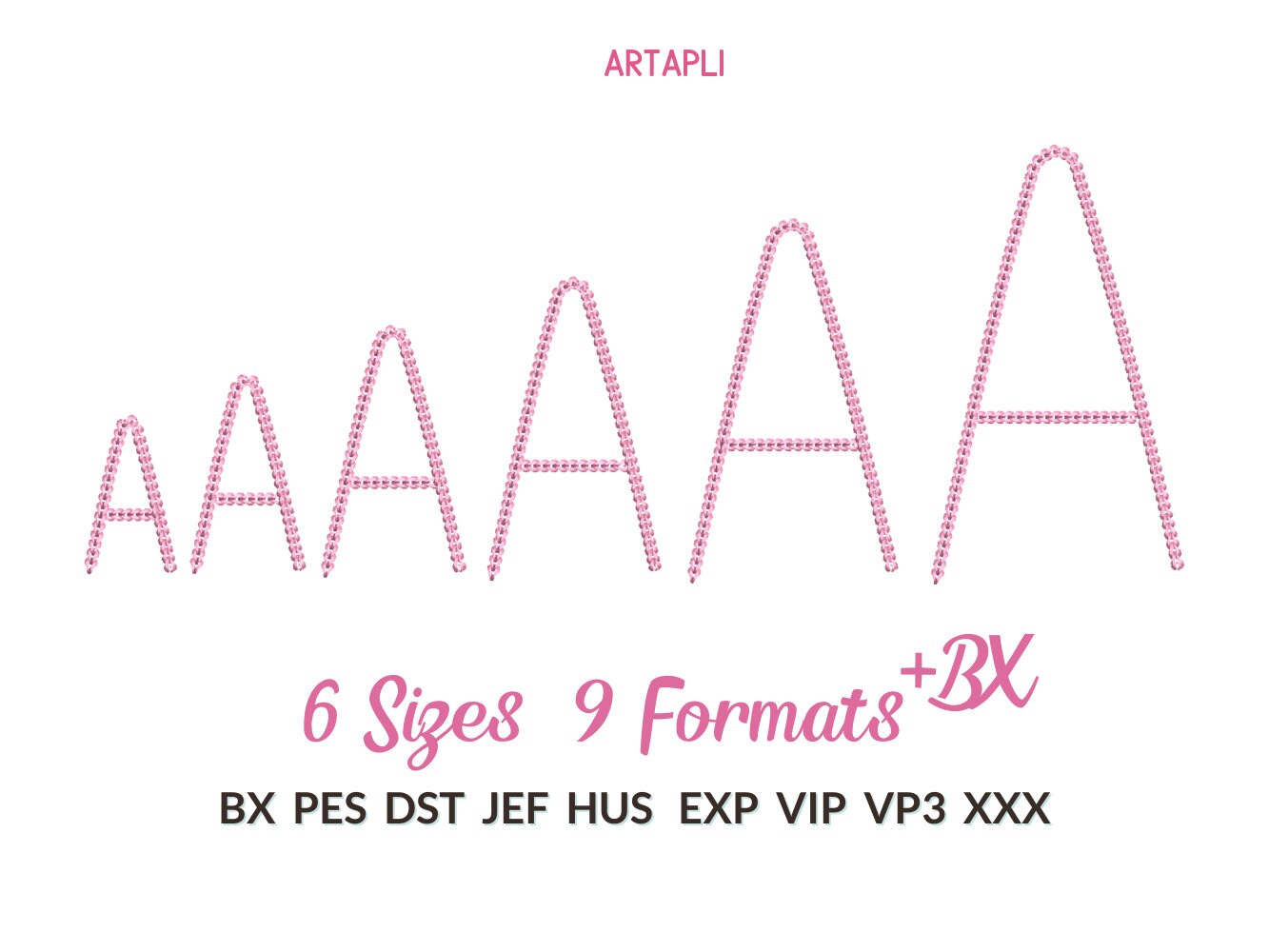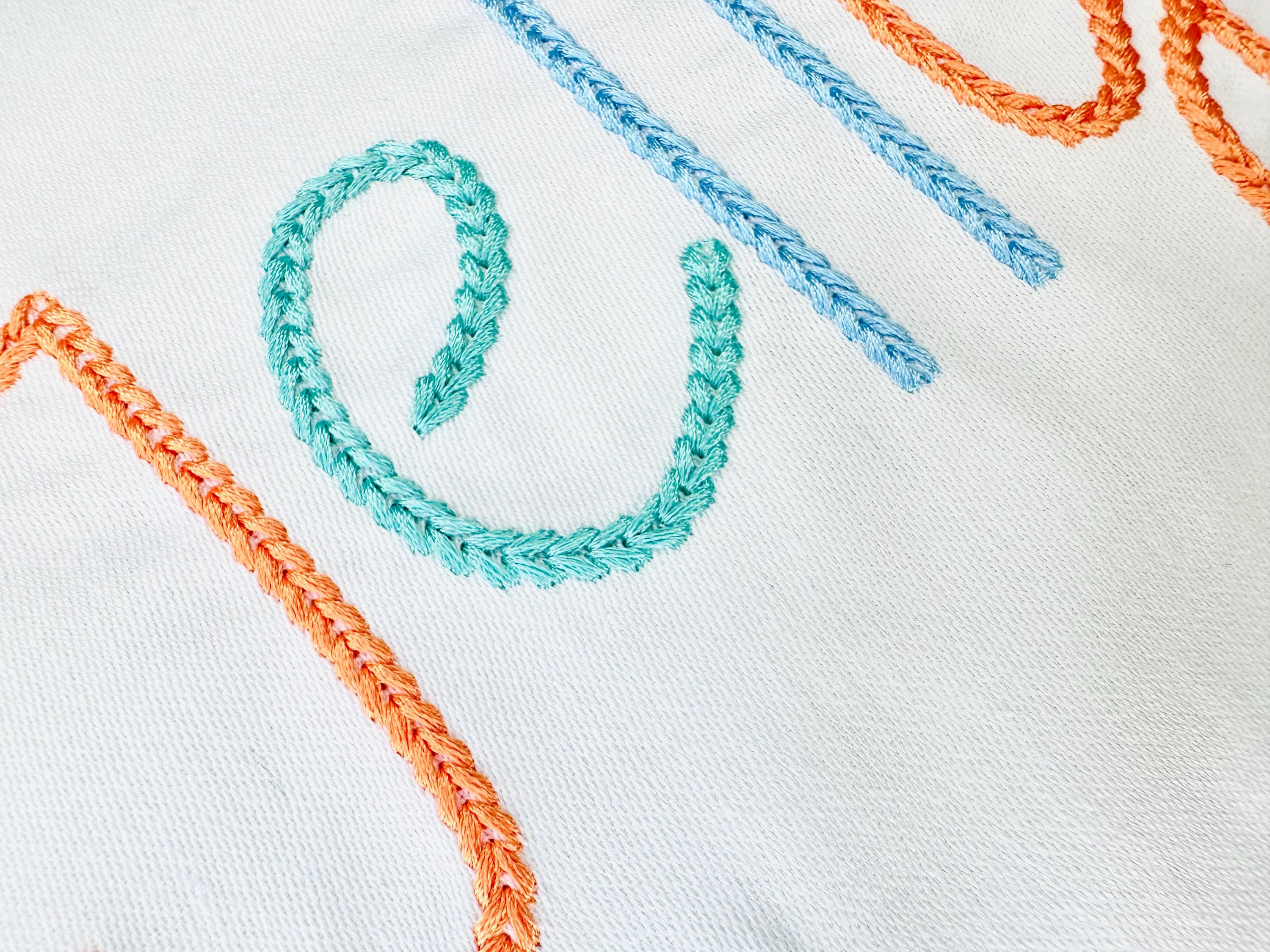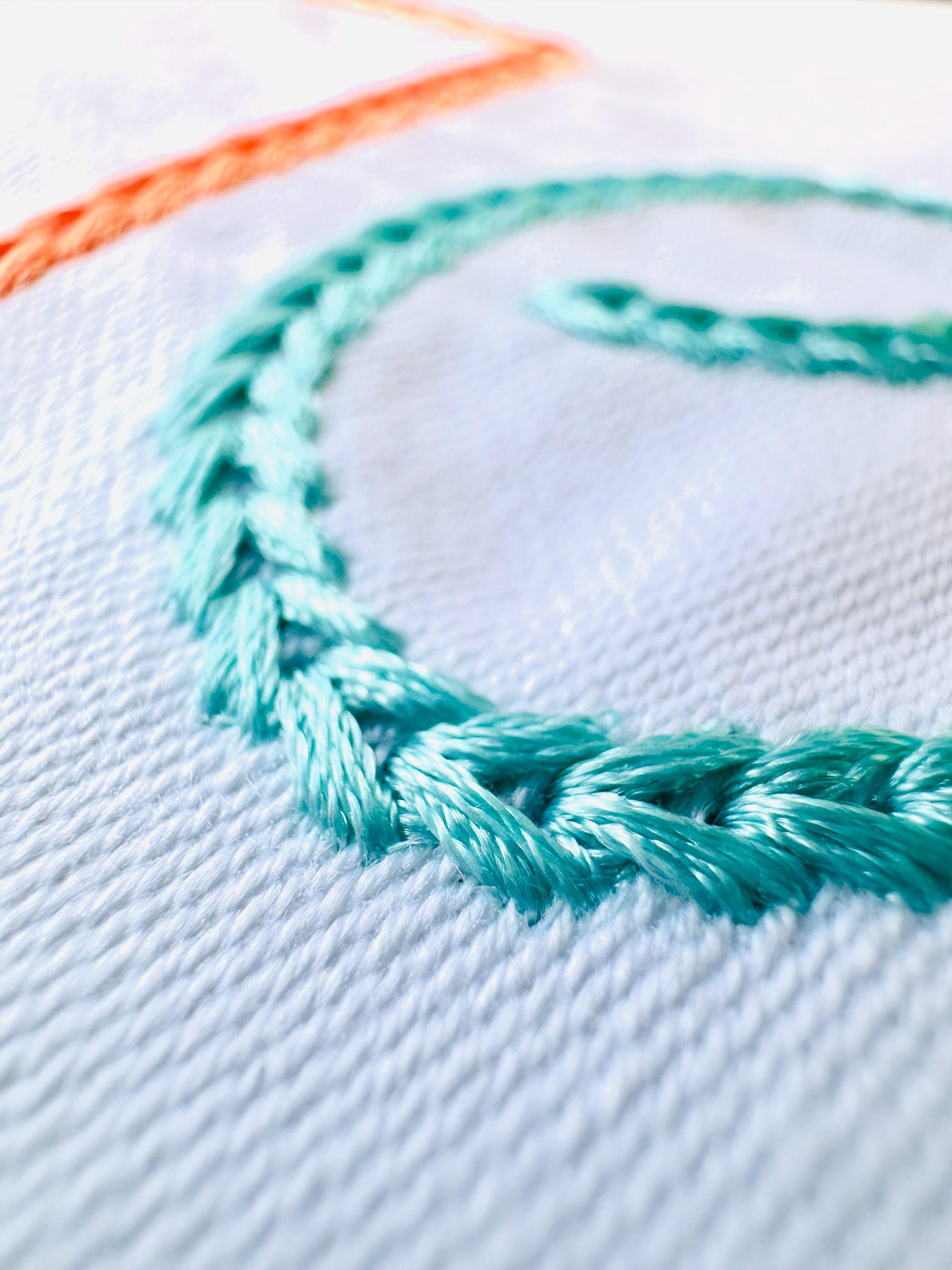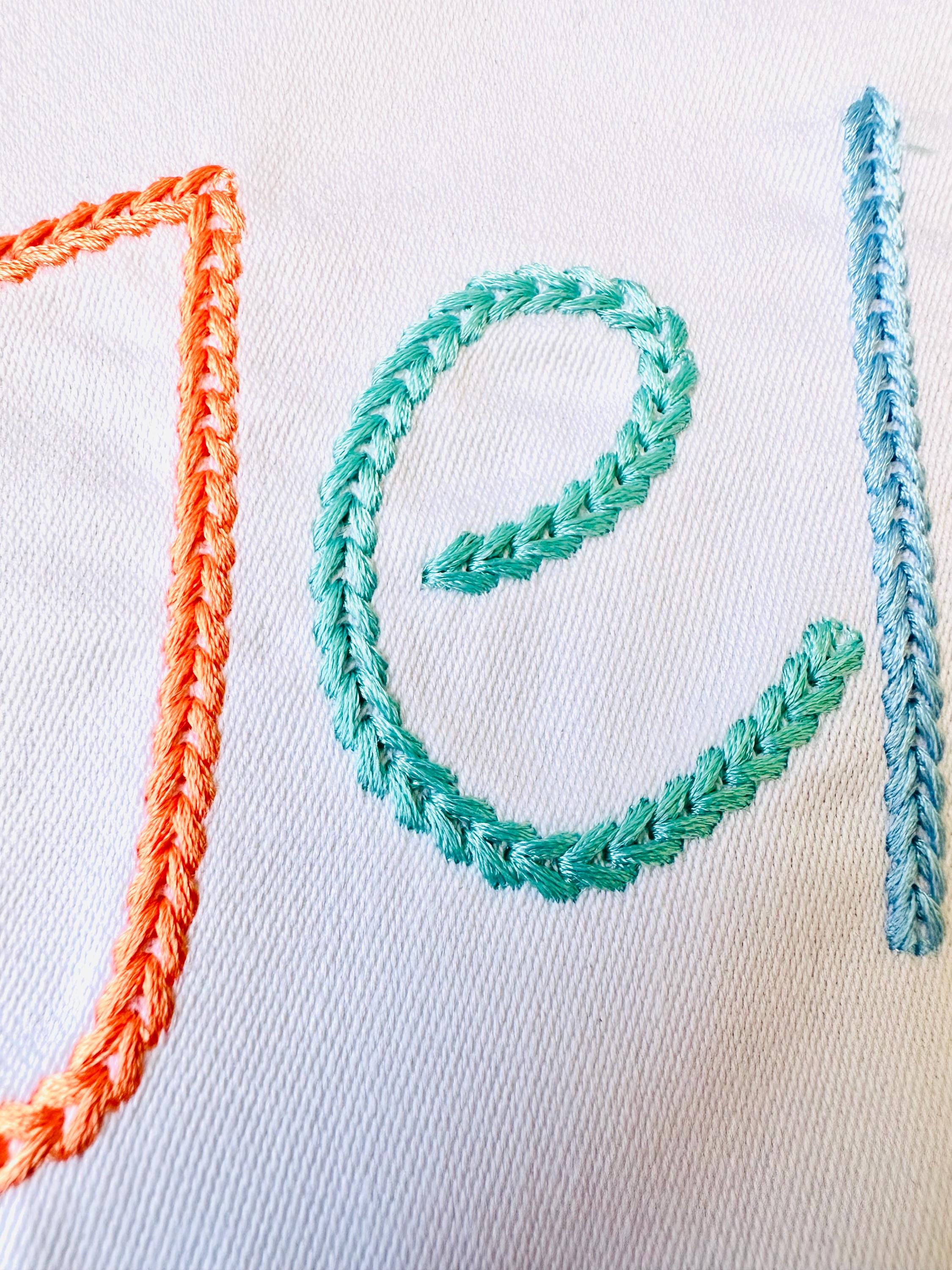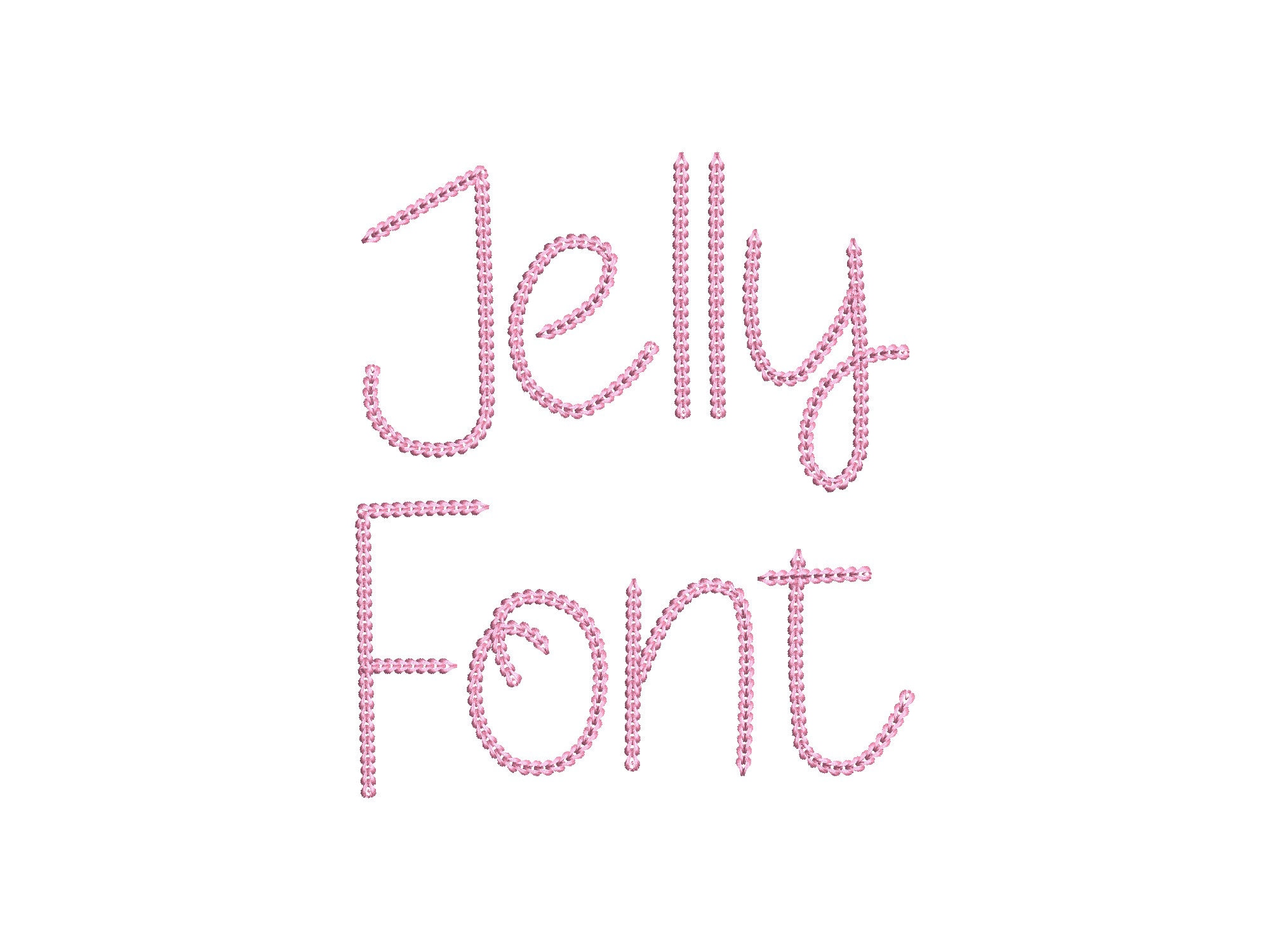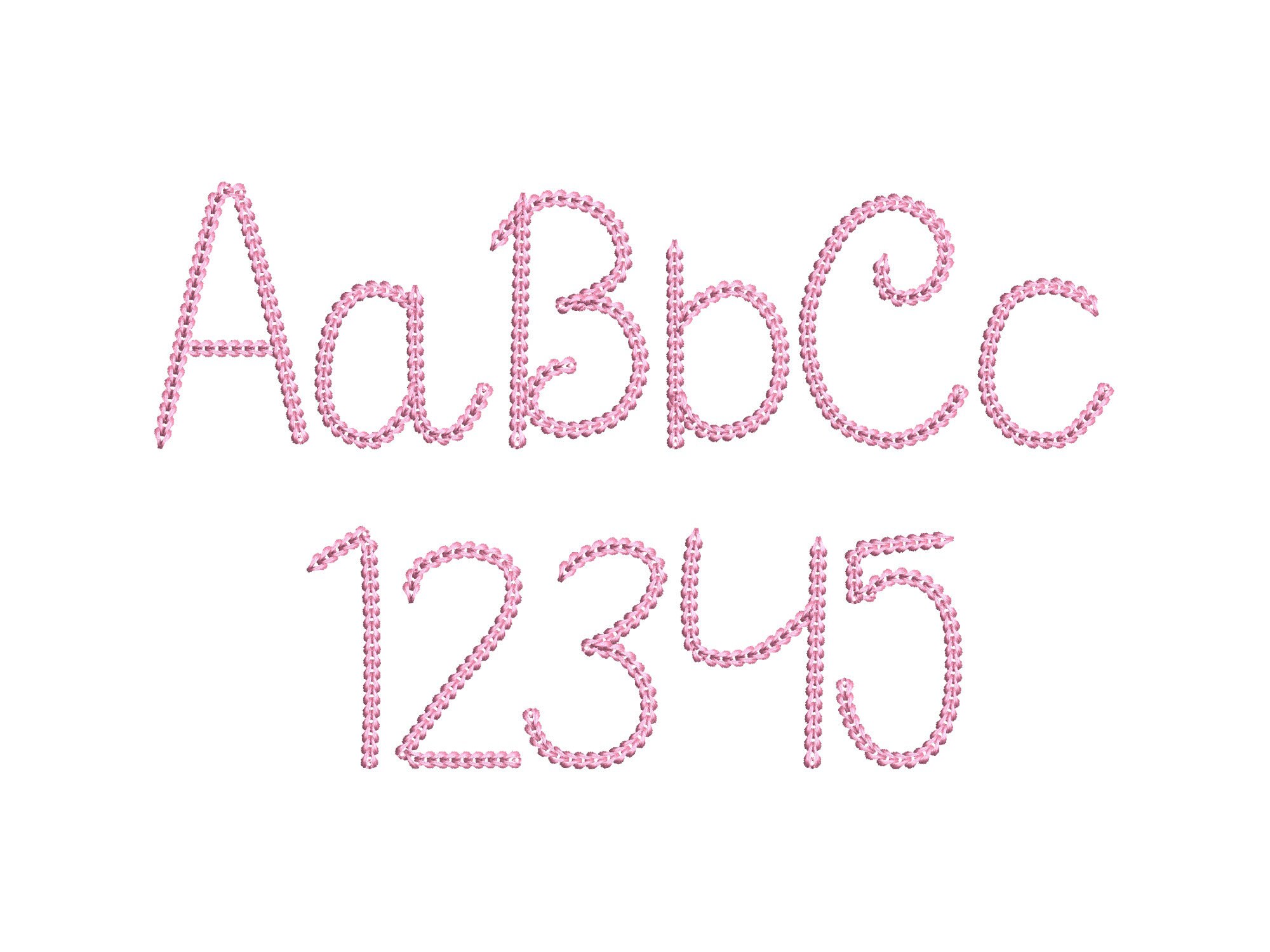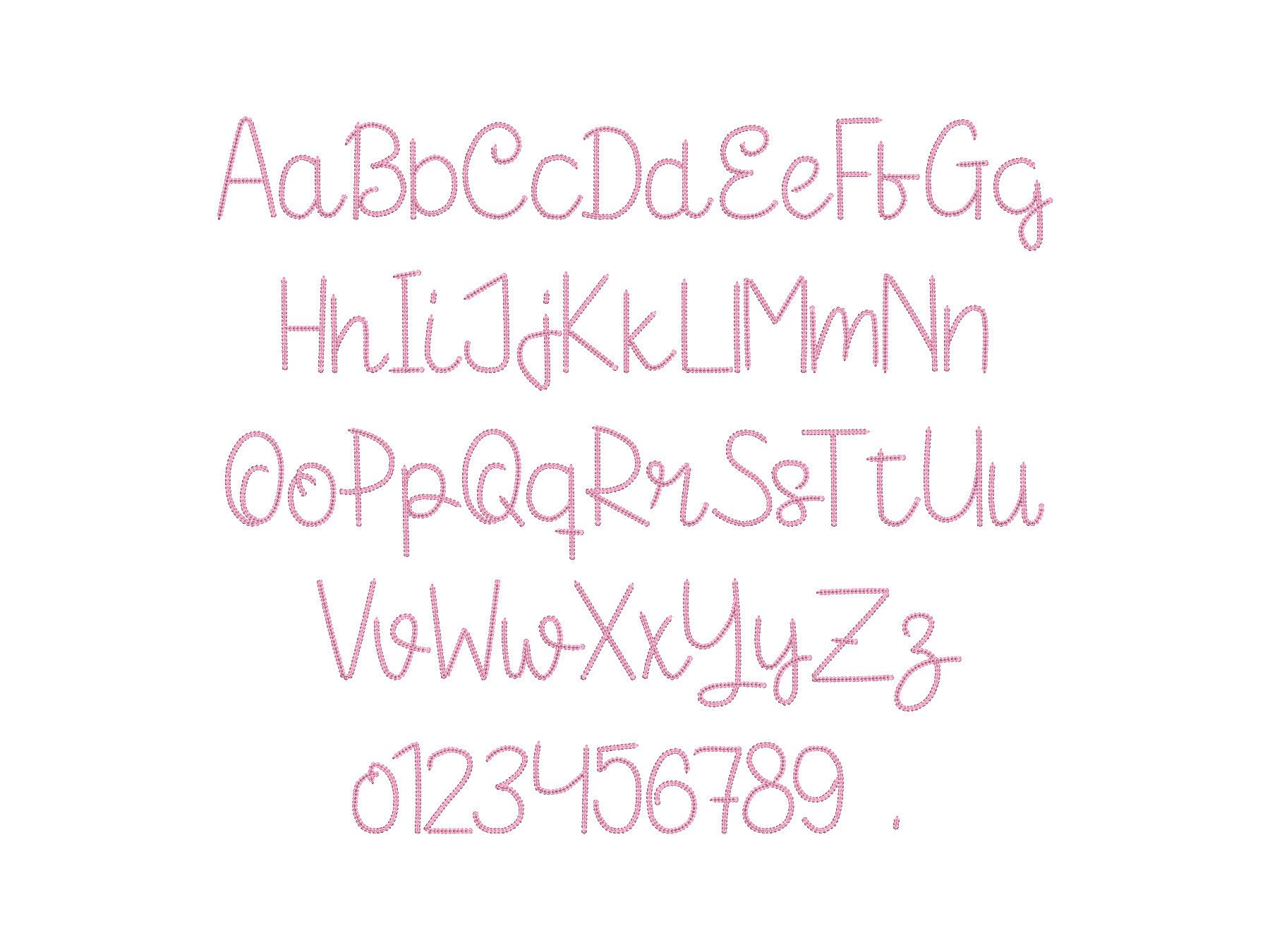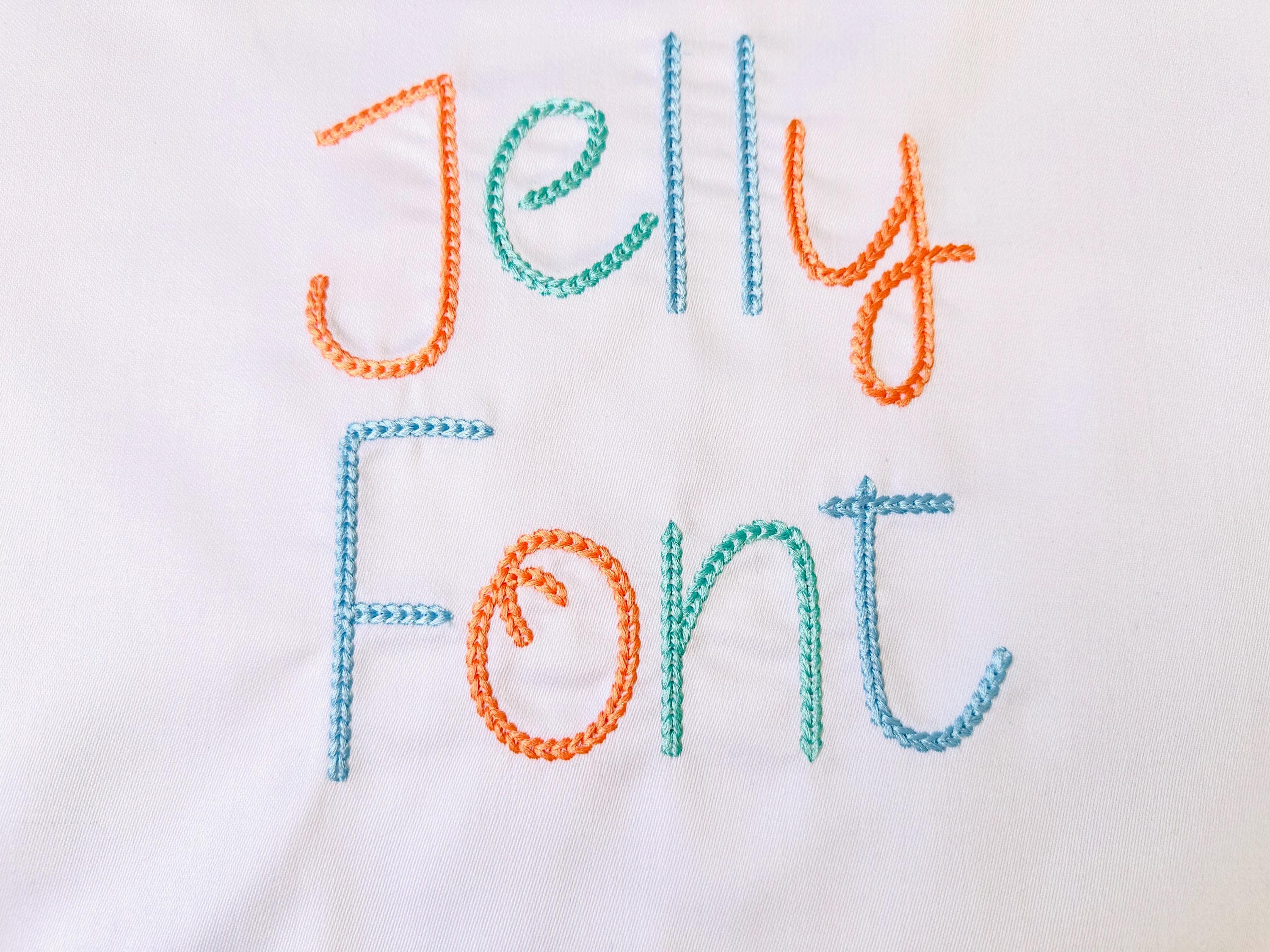
Bold Chain FONT Dense chain stitch medium and big sizes alphabet machine embroidery designs knit sweater handmade effect chain name, BX included
Entire alphabet uppercase and lowercase letters Aa-Zz, numbers 0-9, and a period.